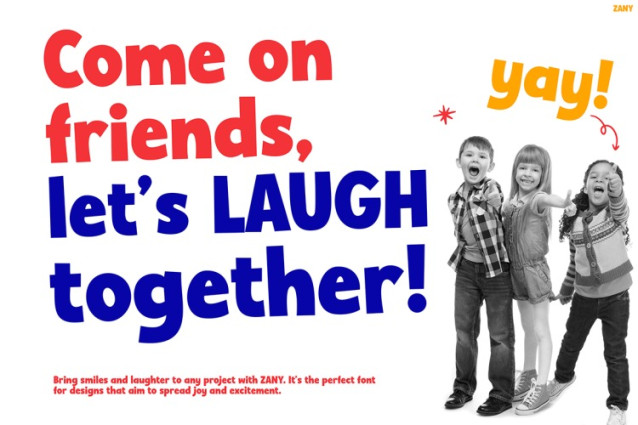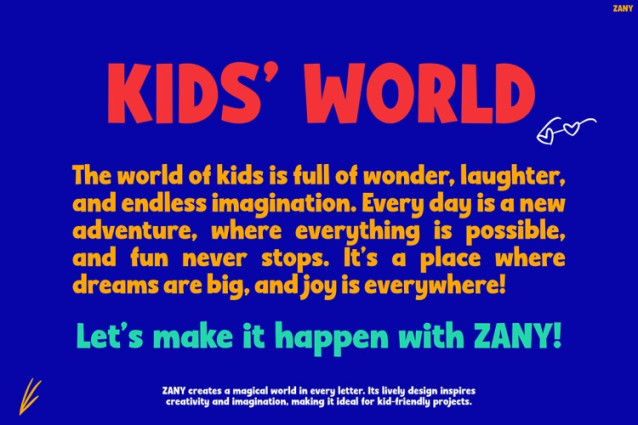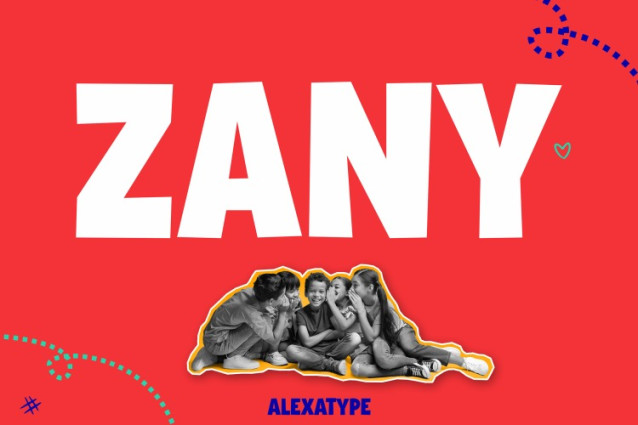
Zany Display Font
Zany Display Font is a lively and expressive typeface designed to bring joy to any creative project. With its bold curves, playful angles, and dynamic letterforms, this font captures the vibrant energy of childhood. Its eye-catching style makes it perfect for use in fun and cheerful design themes. Whether you’re working on a back-to-school banner or kids’ product packaging, Kids Font Zany adds an instant sense of excitement. Moreover, the font’s quirky charm makes it stand out in both digital and print formats.
Additionally, its large, rounded characters are highly legible, even at smaller sizes. This balance of clarity and creativity ensures your message gets across without sacrificing visual appeal. The exaggerated shapes, slightly off-kilter letters, and energetic rhythm lend a sense of spontaneity to your layouts. Furthermore, the font includes both uppercase and lowercase letters, numbers, and symbols—giving you plenty of flexibility.
Kids Font Zany is ideal for designers, educators, and content creators who want to spark happiness through their visuals. For example, it works wonders in school-related designs like posters, name tags, or classroom signs. Additionally, it’s perfect for packaging, especially in products targeting children like snacks, toys, or stationery.
If you’re a content creator making educational videos, this font can help your thumbnails or slides look more inviting. On the other hand, businesses focused on kids’ branding will find it incredibly useful for promotional materials. From product labels to digital ads, Zany makes your designs pop with positivity.
If you’re looking for a way to infuse your designs with joy, creativity, and bold character, Kids Font Zany is your go-to choice. Its engaging style is sure to capture attention and leave a lasting impression. So why settle for ordinary fonts when you can bring your projects to life with Zany? Try it today and let your creativity run wild!